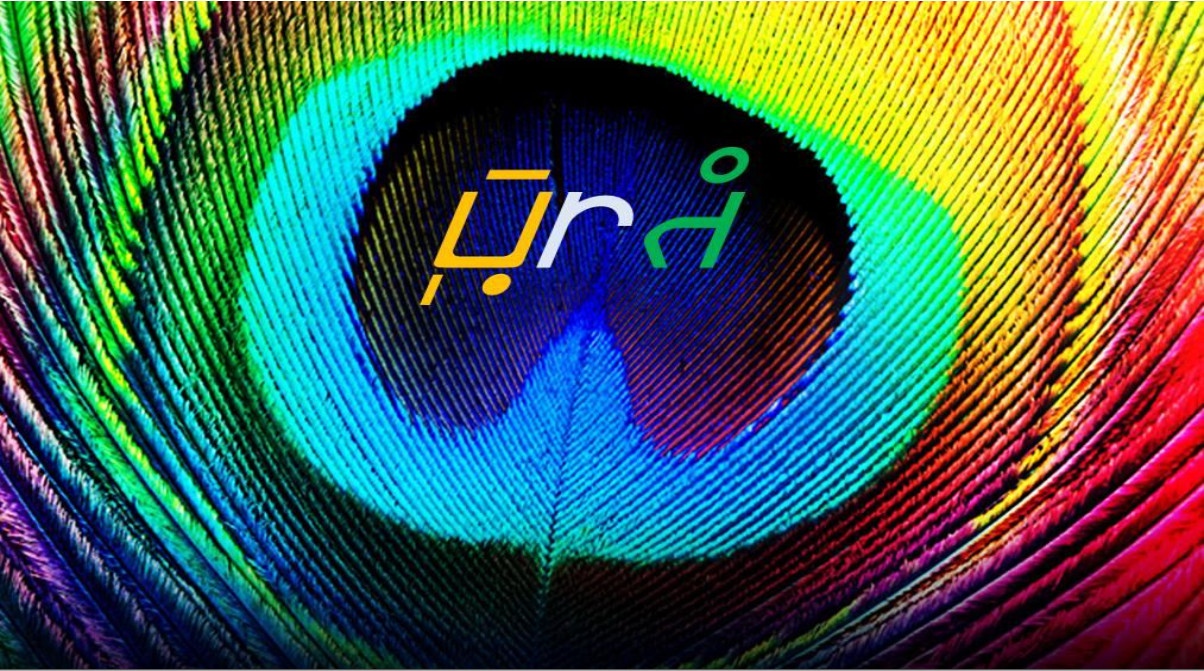
Bharati Script Pack
Bharati Script Pack Font is perfect for Indian cultural events, traditional wedding invitations, spiritual center branding, yoga studio signage, meditation retreat materials, ayurvedic wellness packaging, cultural festival promotions, authentic Indian restaurant menus, heritage craft labels, and traditional arts organizations.
Bharati Script Pack Font creates excitement because it embodies the rich spiritual heritage and timeless wisdom of Indian culture with its flowing script letterforms and traditionally-inspired character design. The font pack's elegant curves and cultural authenticity instantly convey ancient wisdom and spiritual depth, making any brand appear deeply rooted in authentic Indian tradition. Its carefully crafted Sanskrit-inspired details and cultural character create an immediate sense of spiritual connection that captivates audiences seeking authentic cultural experiences, traditional wisdom, and products that celebrate the profound beauty of Indian heritage and spiritual traditions.
The Bharati Script Pack Font family includes multiple weights and styles: Regular, Bold, Light, Medium, Italic, Condensed, Extended, Traditional, Spiritual, and Heritage versions. Each variant maintains the font pack's signature cultural character while offering different levels of traditional styling and spiritual authenticity suitable for various Indian cultural and spiritual applications.
This sacred typeface collection brings the authentic spirit of Indian cultural tradition into contemporary design projects with remarkable spiritual depth and cultural appeal. Bharati Script Pack Font Free Download provides cultural organizations and spiritual brands with access to premium Indian-inspired typography that embodies the essence of ancient wisdom and traditional Indian aesthetics. The font pack's spiritual design and cultural authenticity make it ideal for businesses seeking to establish meaningful connections with audiences who appreciate Indian philosophy, traditional culture, and the transformative power of ancient wisdom. Whether you're creating branding for yoga centers, designing materials for spiritual retreats, developing communications for cultural institutions, or producing marketing content for traditional wellness practices, this font pack delivers the authentic Indian atmosphere that resonates with audiences seeking genuine spiritual experiences, cultural wisdom, and the profound insights that come from connecting with ancient Indian traditions. Its versatile design ensures excellent performance across both sacred printed materials and enlightening digital platforms while maintaining the character of authentic Indian typography. The fonts excel in applications requiring cultural credibility and spiritual appeal. Spiritual wellness professionals appreciate the pack's ability to convey ancient wisdom while remaining highly functional for various cultural communications and traditional promotional materials. The comprehensive character sets include Sanskrit symbols and extensive international language support, making it perfect for global spiritual brands and international cultural organizations seeking to communicate authentic Indian heritage, spiritual wisdom, and traditional cultural values to diverse worldwide audiences who embrace ancient wisdom, seek spiritual growth, and value the transformative power of authentic Indian culture that connects people with timeless spiritual truths and the profound beauty of traditional Indian philosophy and cultural heritage.